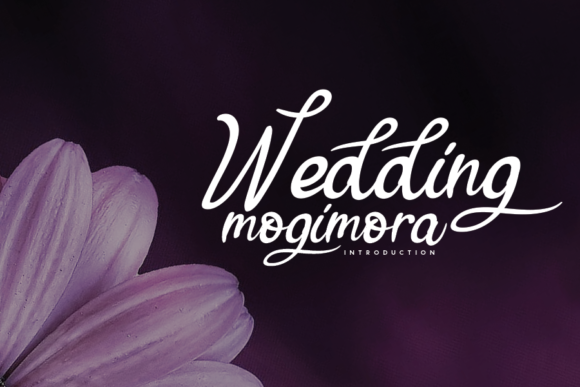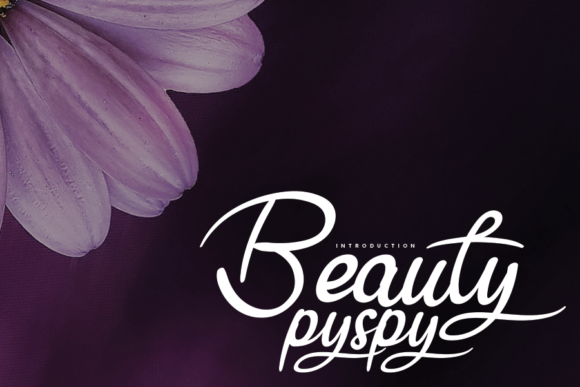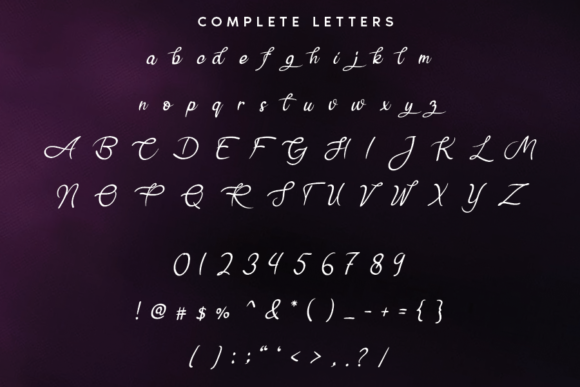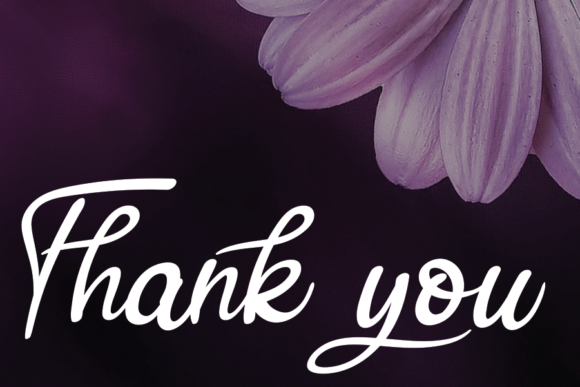
Gadigoke Haola Font: The Elegant and Charming Choice for Designers and Crafters
In the world of typography, fonts play a crucial role in conveying the tone and personality of a design. For designers and crafters looking for a font that exudes elegance and charm, Gadigoke Haola is an excellent choice. This beautiful handwritten font is perfect for a variety of design projects, from wedding invitations and thank you cards to quotes, greeting cards, logos, and business cards.
The Unique Characteristics of Gadigoke Haola Font
Gadigoke Haola font feels equally charming and elegant, making it an ideal choice for designers who want to add a touch of sophistication to their designs. The font’s handwritten style gives it a personal and intimate feel, perfect for creating unique and special designs. The elegant strokes and curves of the font make it suitable for a wide range of design projects, from formal events to casual applications.
Wedding invitations, thank you cards, and other event-related designs require a font that is both elegant and charming. Gadigoke Haola font fits the bill perfectly, adding a touch of sophistication and romance to any design. The font’s beautiful handwritten style makes it perfect for creating stunning wedding stationery, including invitations, save-the-date cards, and thank you notes.
Ideal for Quotes and Greeting Cards
For designers and crafters who create quotes and greeting cards, Gadigoke Haola font is an excellent choice. The font’s elegant and charming style makes it perfect for conveying heartfelt messages and sentiments. Whether you’re creating inspirational quotes, birthday cards, or get-well cards, Gadigoke Haola font is sure to make your designs stand out.
Suitable for Logos and Business Cards
Gadigoke Haola font is not just limited to personal and event-related designs. Its elegant and charming style makes it suitable for logos and business cards as well. For businesses that want to convey a sense of sophistication and professionalism, Gadigoke Haola font is an excellent choice. The font’s unique handwritten style can help businesses stand out from the competition and create a lasting impression.
Tips for Using Gadigoke Haola Font
To get the most out of Gadigoke Haola font, here are some tips to keep in mind:
- Use the font for headings and titles to add a touch of elegance and charm.
- Pair the font with a simple sans-serif font for body text to create a beautiful contrast.
- Use the font consistently throughout your design to create a cohesive look.
Gadigoke Haola font is a beautiful and elegant choice for designers and crafters looking to add a touch of sophistication to their designs. Its unique handwritten style makes it perfect for a wide range of design projects, from wedding invitations and event designs to quotes, greeting cards, logos, and business cards. With its charming and elegant style, Gadigoke Haola font is sure to make your designs stand out and leave a lasting impression.